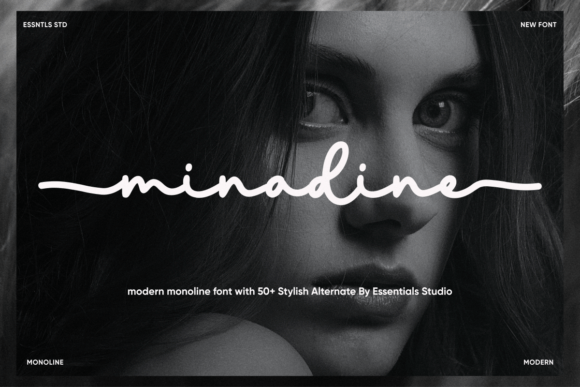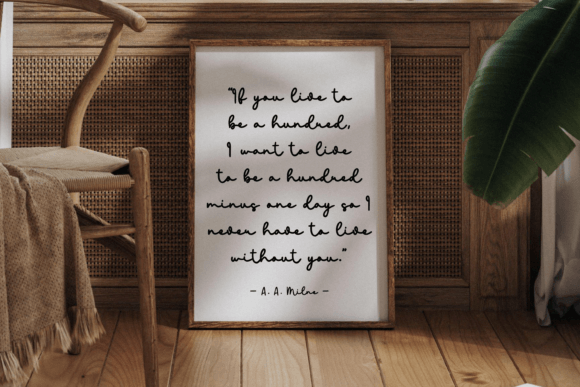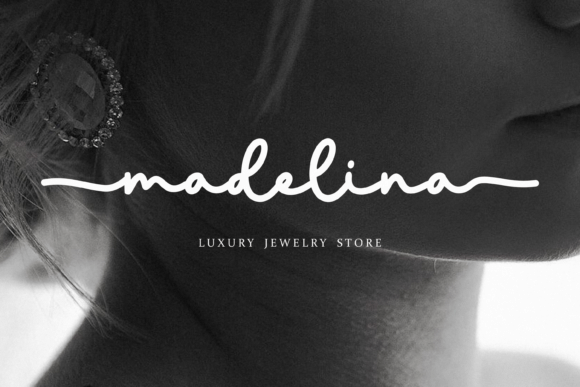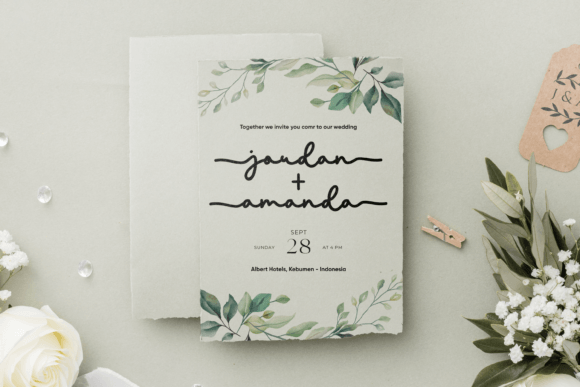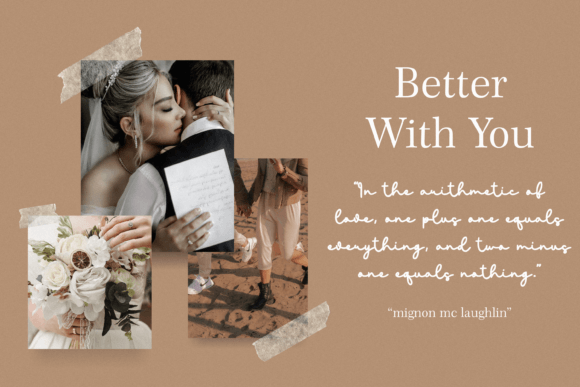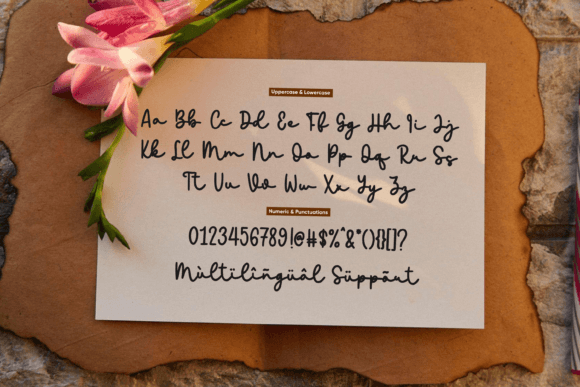
Minadine
About Minadine
Minadine Is a modern monoline font. Minadine is perfect for product packaging, branding project, magazine, social media, weddings, or just used to express words above the background.